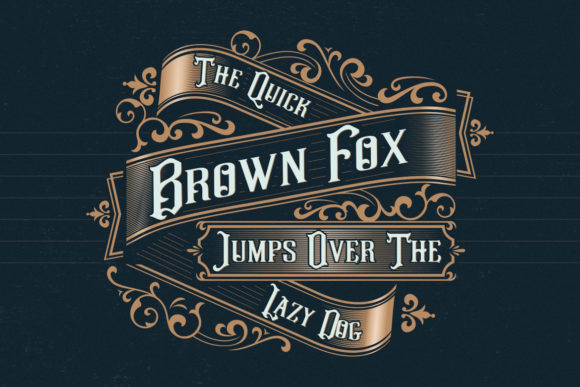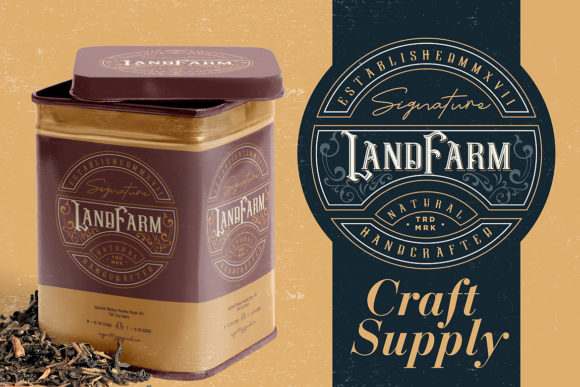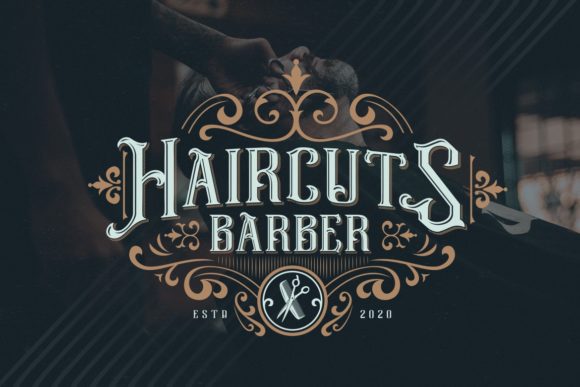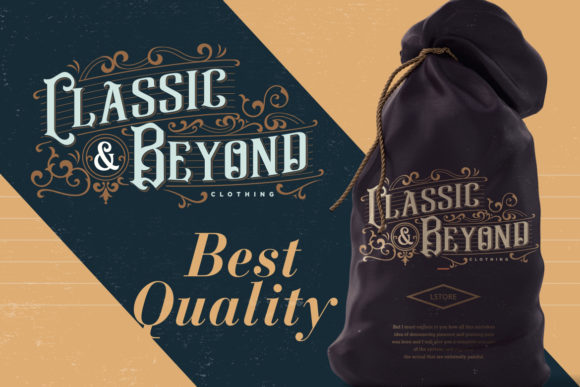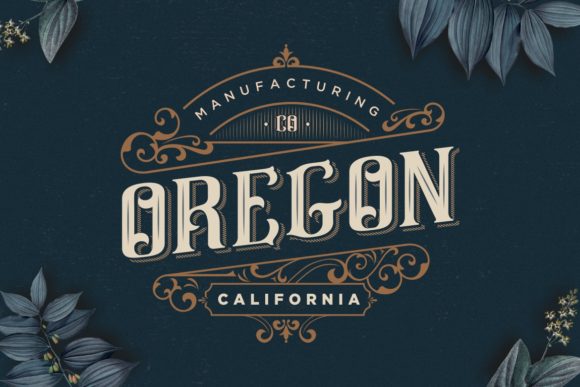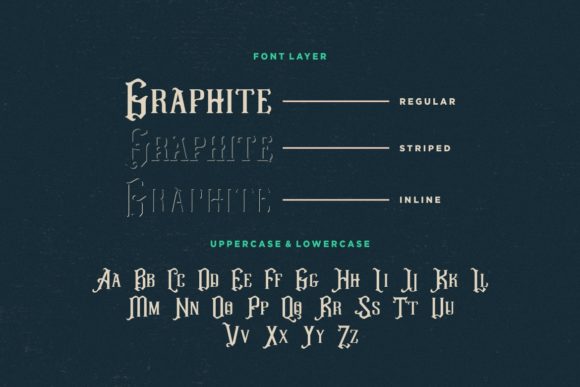
Introducing Graphite Font: A Vintage Masterpiece for Designers and Crafters
Are you tired of using the same old fonts in your designs? Do you want to add a touch of elegance and sophistication to your projects? Look no further than Graphite Font, a sweet and cool display font with a unique look that’s sure to capture your heart. With its vintage charm and beautiful ornaments, Graphite Font is the perfect addition to any designer’s or crafter’s toolkit.
The Unique Look of Graphite Font
Graphite Font boasts a distinctive style that’s reminiscent of classic typography. Its elegant lines, curves, and ornaments evoke a sense of nostalgia and refinement, making it perfect for designs that require a touch of sophistication. Whether you’re working on a logo, a poster, or a digital project, Graphite Font is sure to add a level of depth and character that will set your design apart from the rest.
The Vintage Charm of Graphite Font
One of the standout features of Graphite Font is its vintage look. The font’s classic design is inspired by traditional typography, with intricate details and ornaments that add a level of elegance to any design. The font’s vintage charm is perfect for designers and crafters who want to create designs that evoke a sense of nostalgia and timelessness. Whether you’re working on a historical project or simply want to add a touch of classic style to your design, Graphite Font is the perfect choice.
Beautiful Ornaments and Details
Graphite Font is more than just a font – it’s a design experience. The font comes with a range of beautiful ornaments and details that can be used to add an extra level of depth and interest to your designs. From intricate swashes to elegant flourishes, Graphite Font’s ornaments are the perfect way to add a touch of personality to your projects. Whether you’re a designer, crafter, or DIY enthusiast, Graphite Font’s ornaments are sure to inspire your creativity.
Graphite Font is a versatile font that’s perfect for designers and crafters of all levels. Whether you’re working on a professional project or a personal craft, Graphite Font is easy to use and adaptable to a range of design styles. The font is suitable for a variety of projects, including:
- Digital projects and social media graphics
- Stationery and invitations
Why Choose Graphite Font?
So why choose Graphite Font over other fonts on the market? Here are just a few reasons why Graphite Font stands out:
- Unique and distinctive design
- Vintage charm and elegance
- Beautiful ornaments and details
- Versatile and adaptable to a range of design styles
Get Creative with Graphite Font
In conclusion, Graphite Font is a sweet and cool display font that’s sure to capture your heart. With its unique look, vintage charm, and beautiful ornaments, Graphite Font is the perfect choice for designers and crafters who want to add a touch of elegance and sophistication to their projects. Whether you’re working on a professional project or a personal craft, Graphite Font is a versatile and adaptable font that’s sure to inspire your creativity.